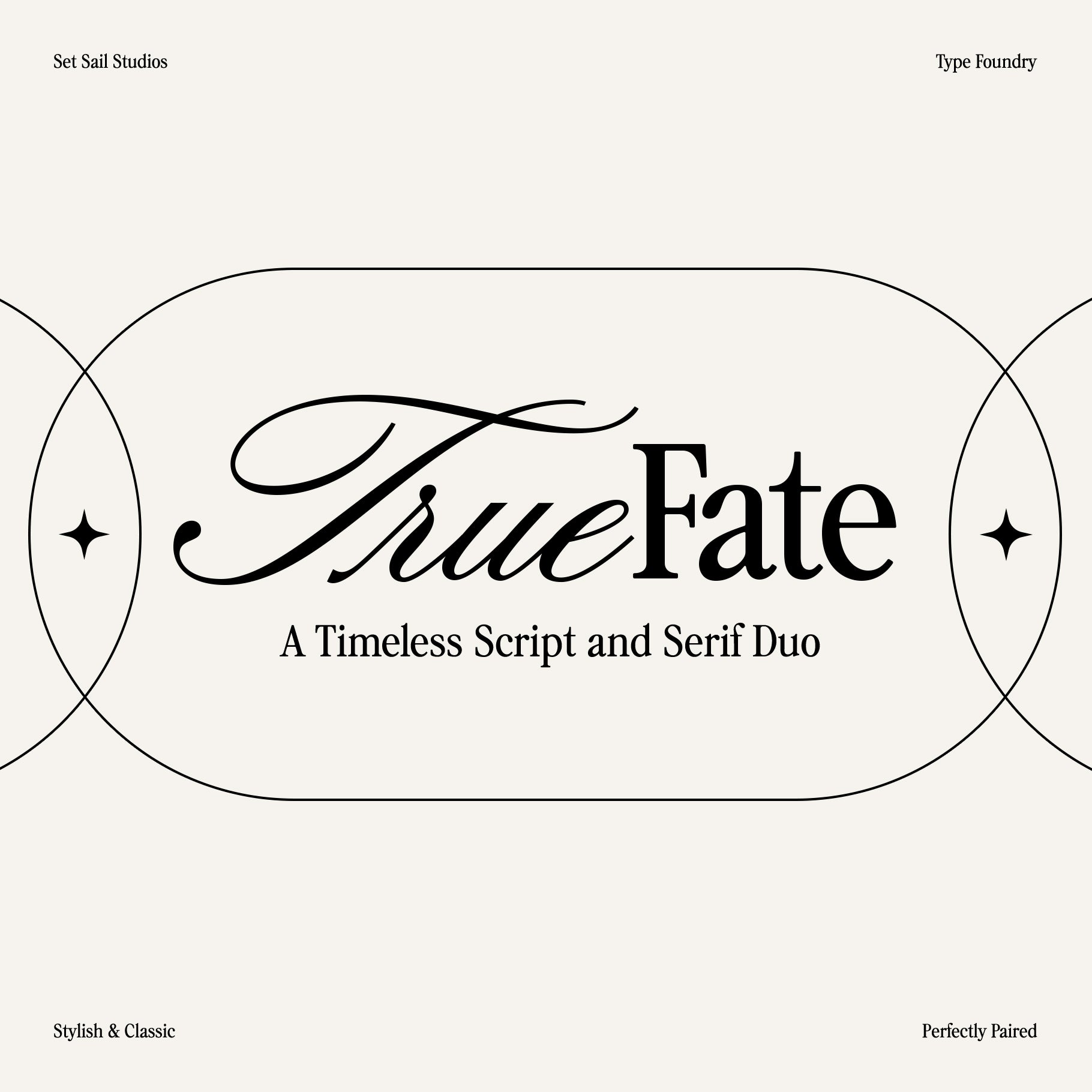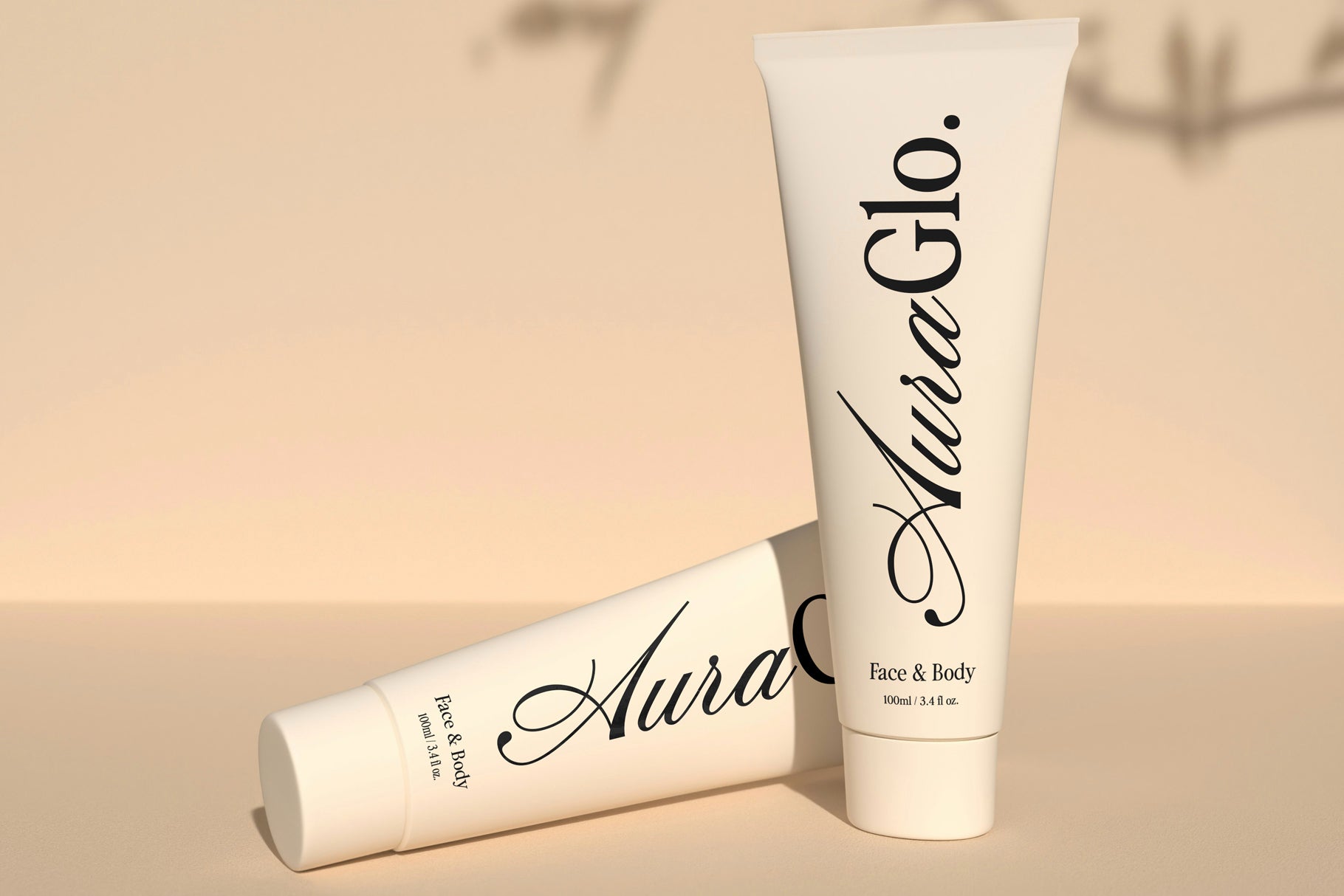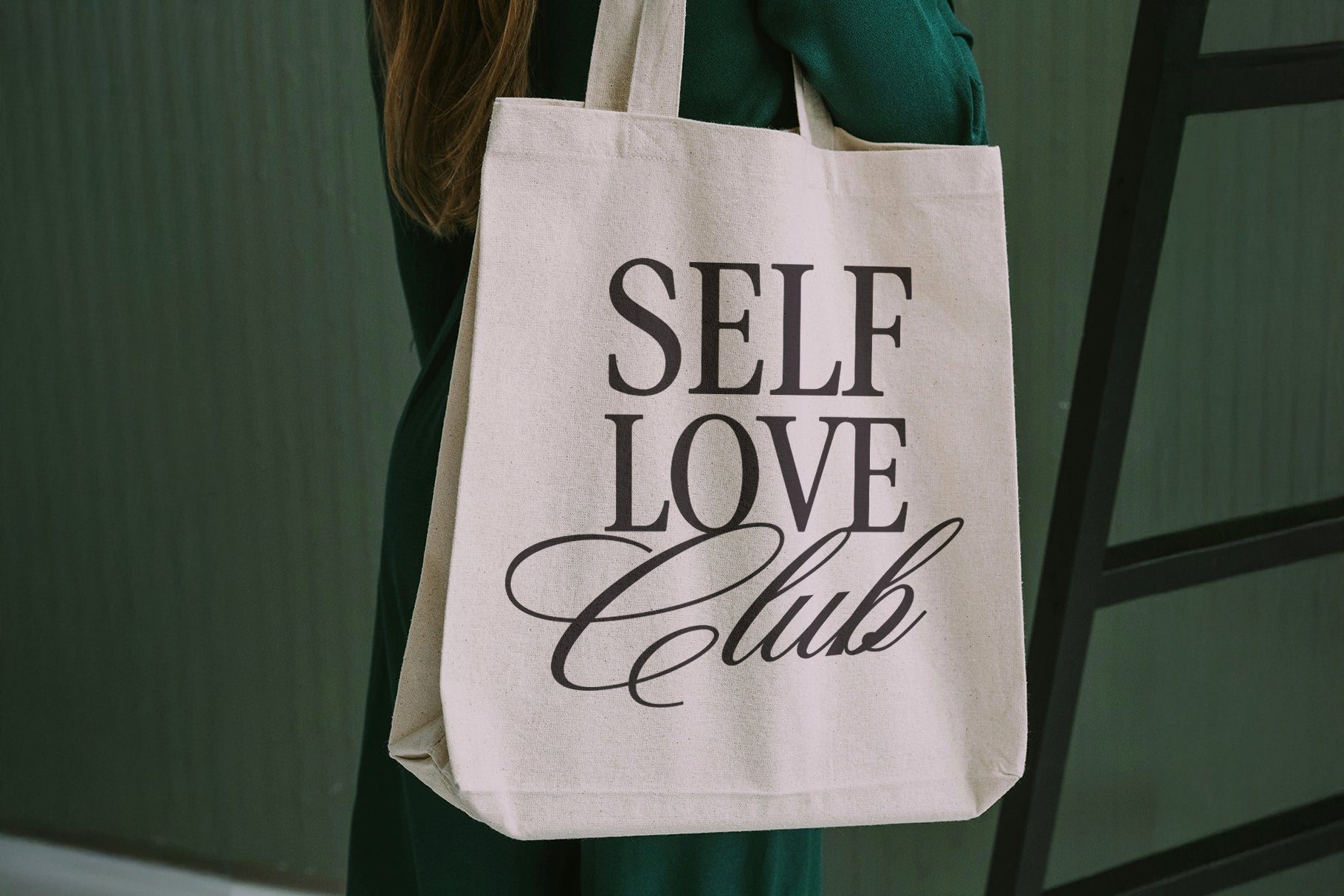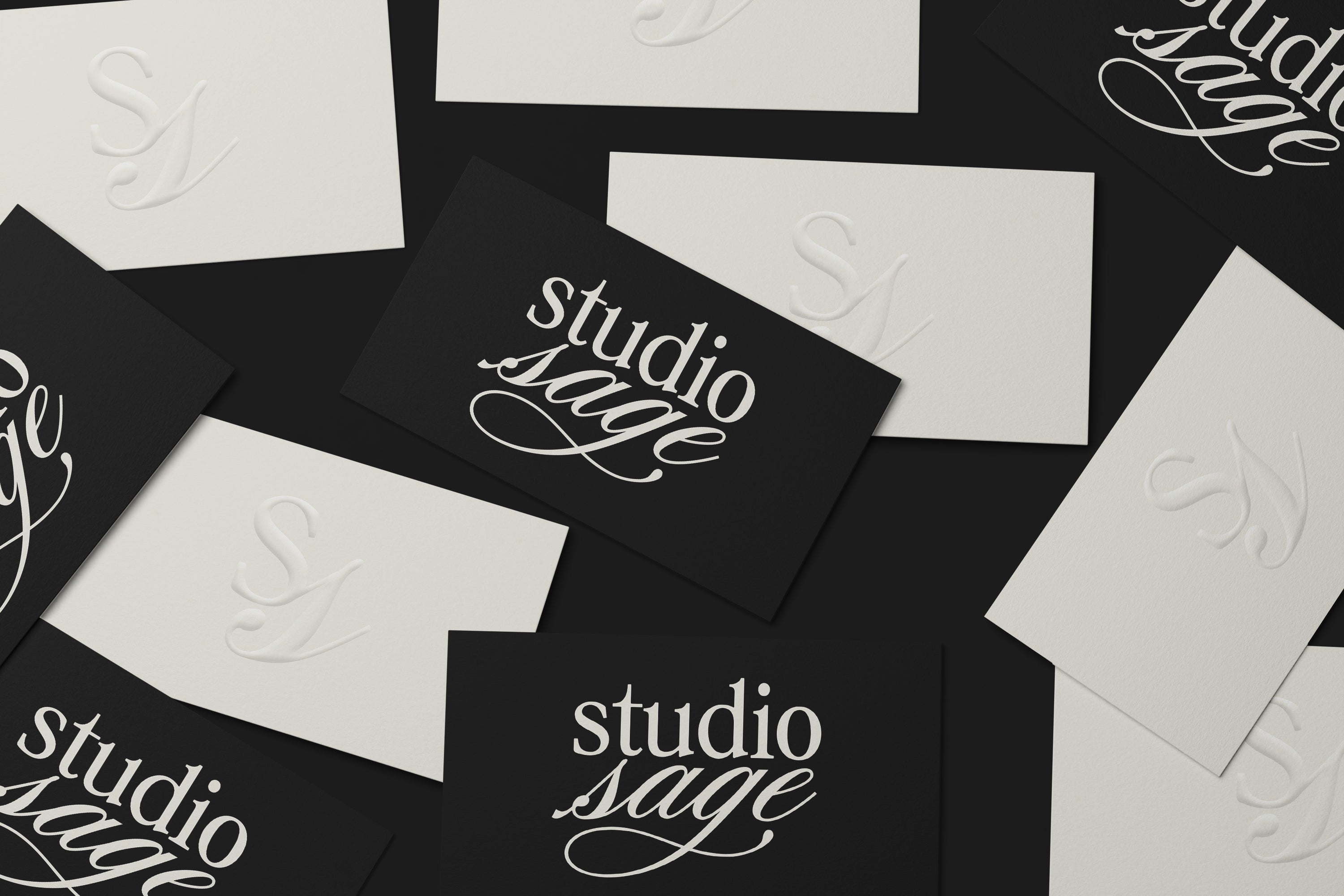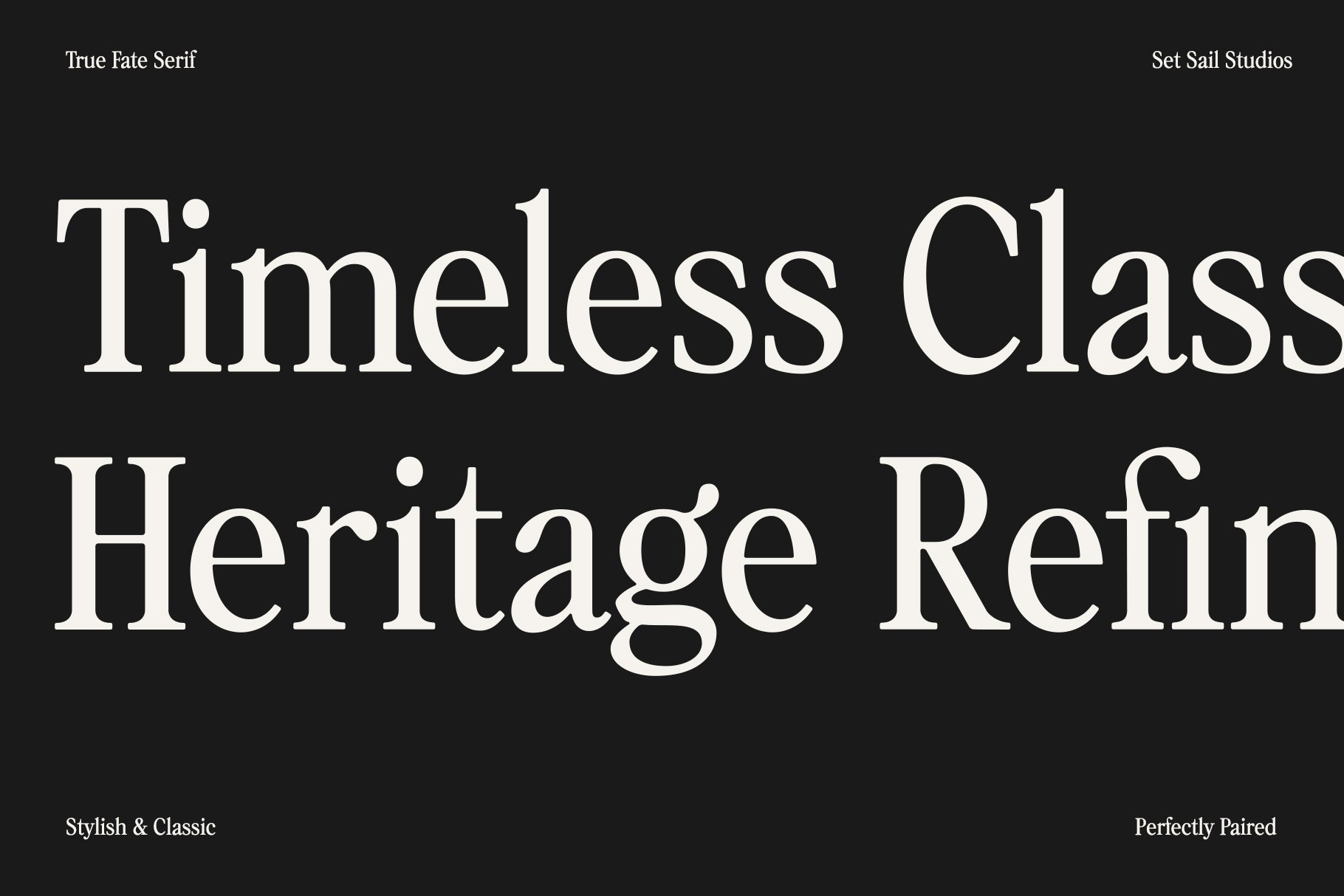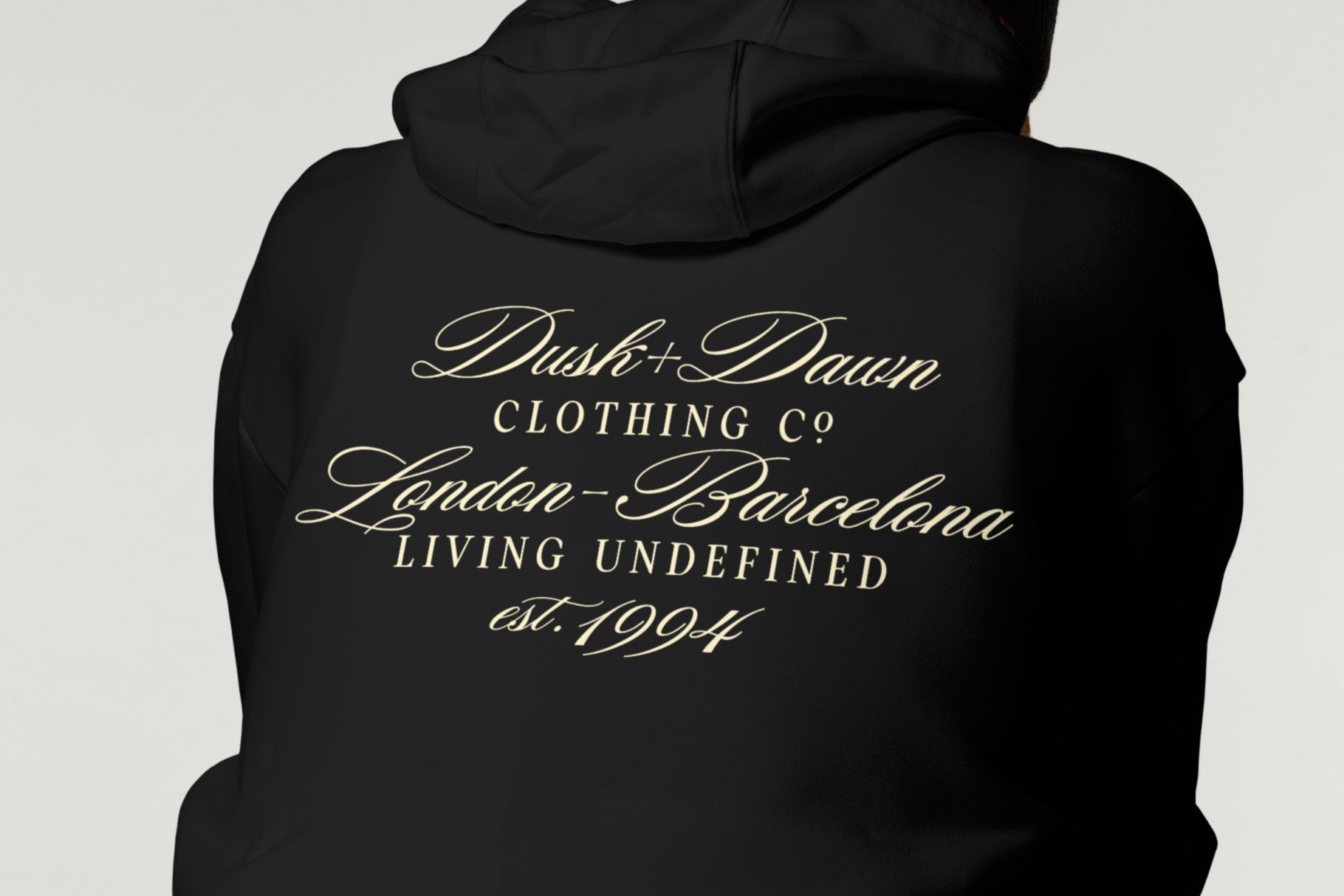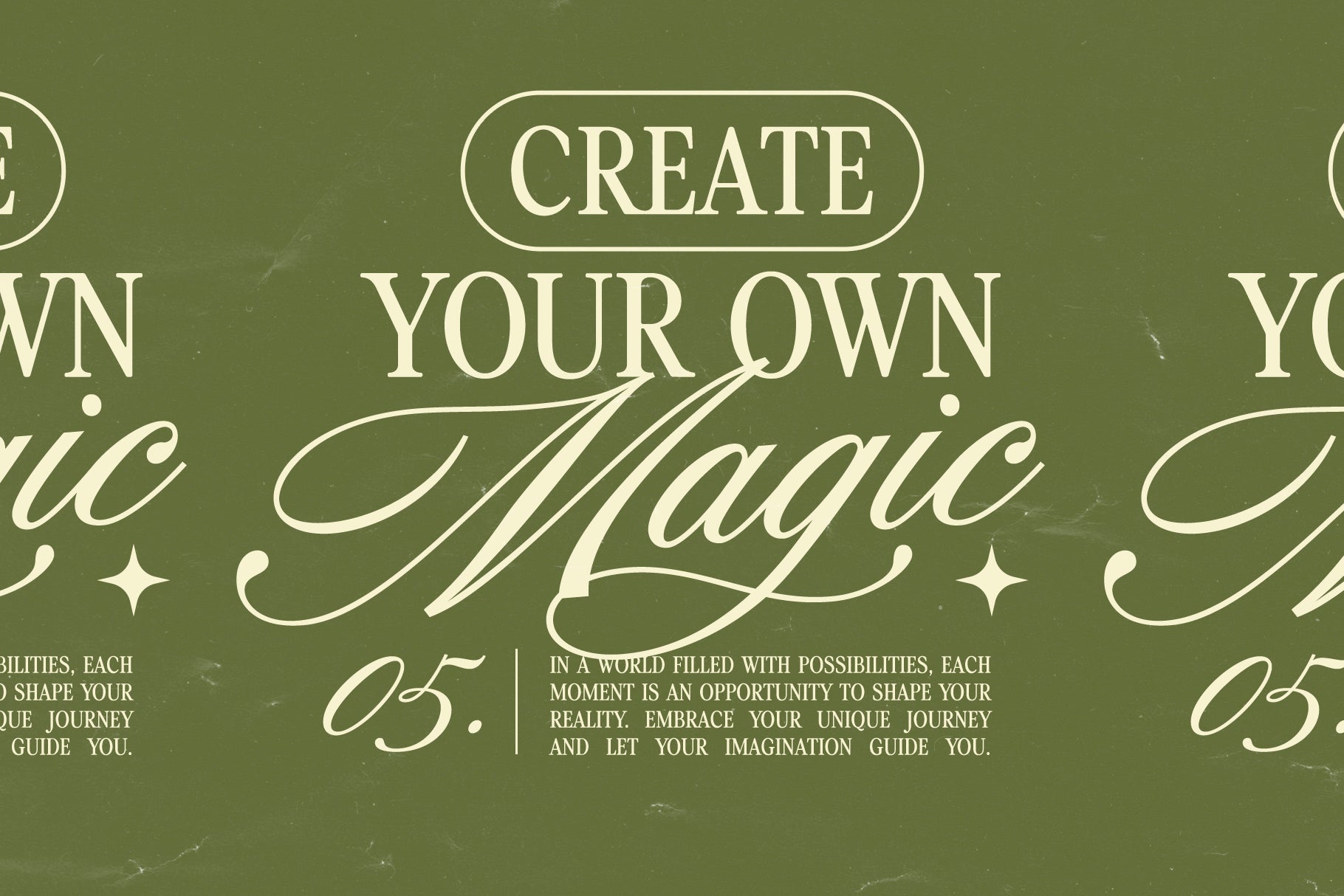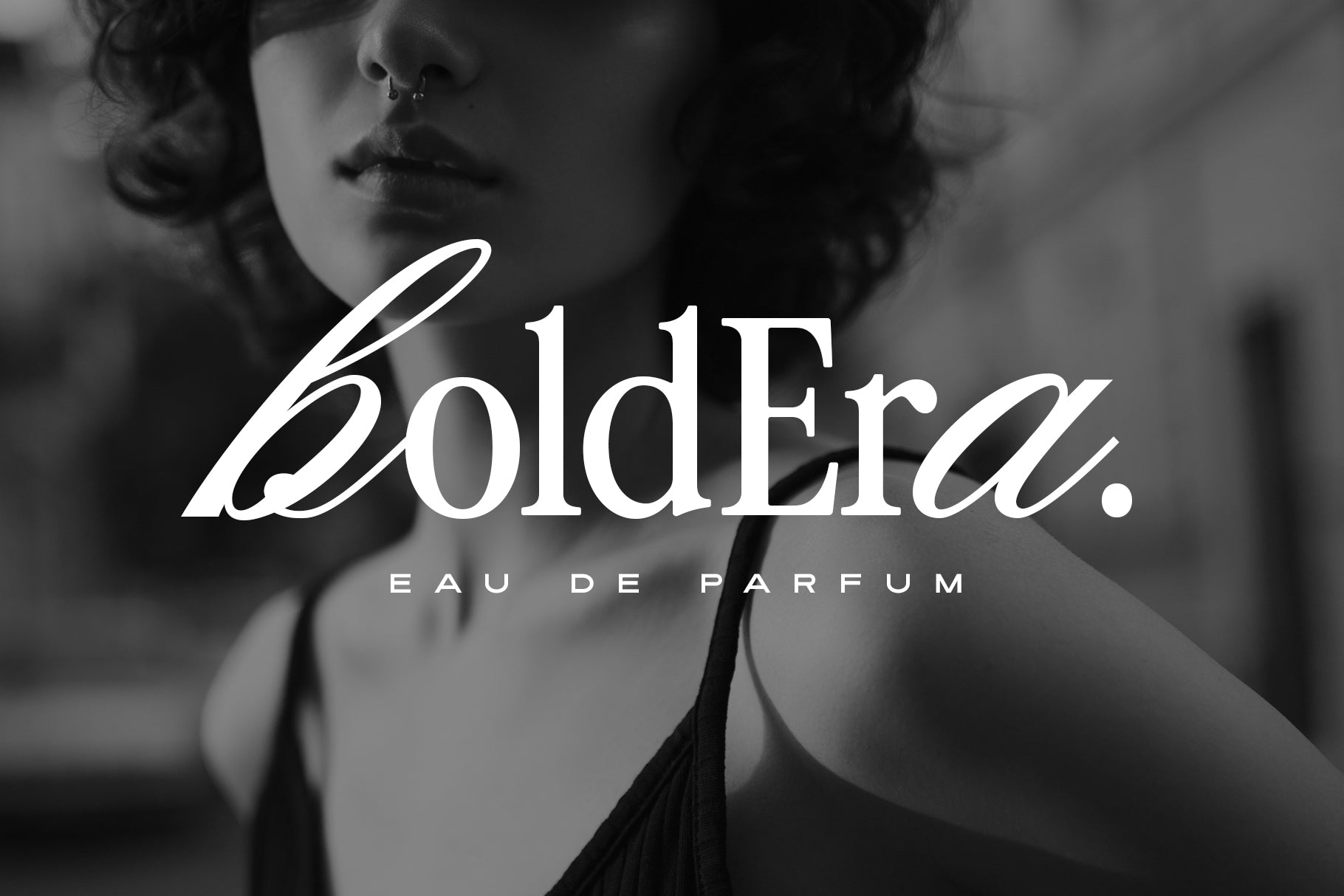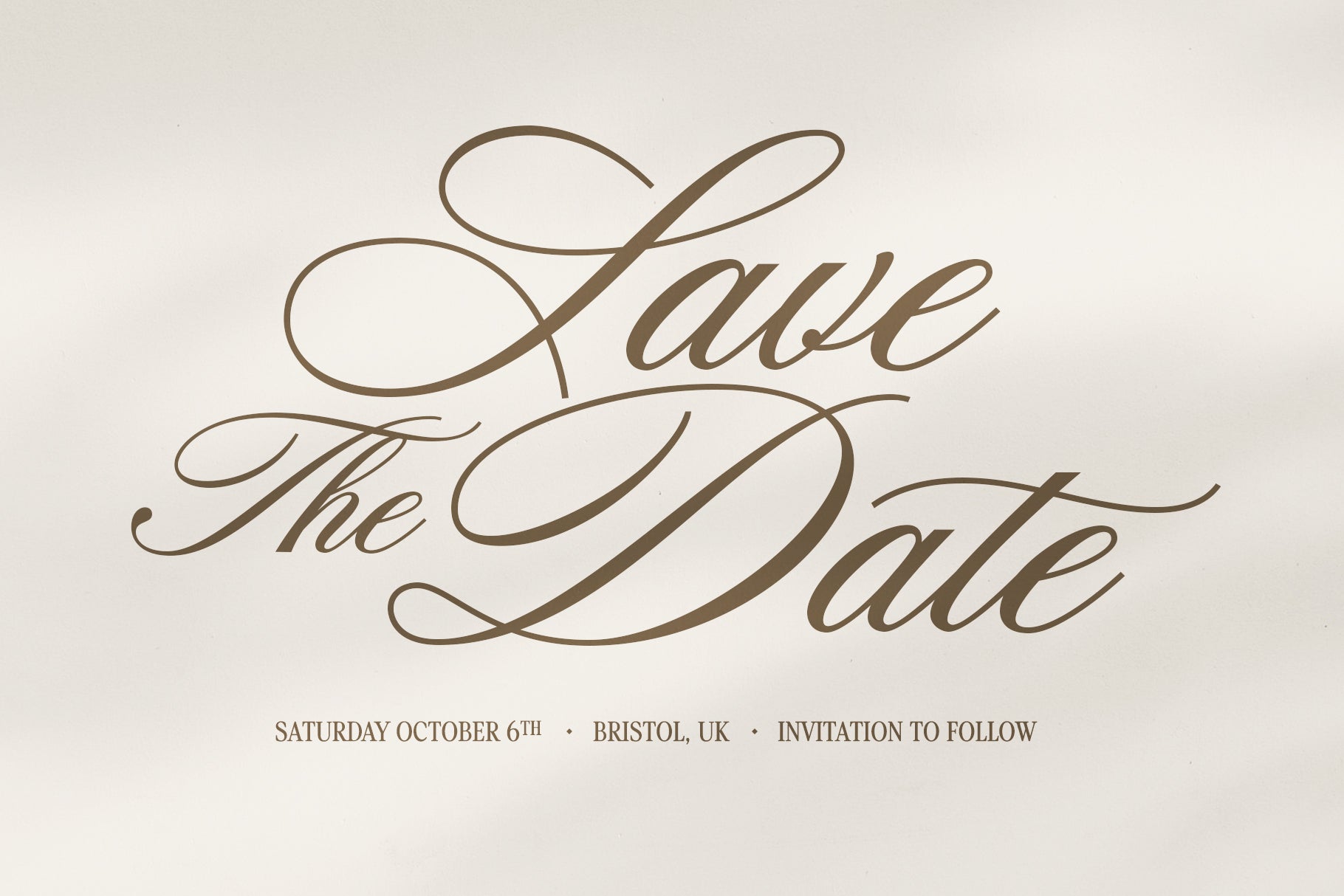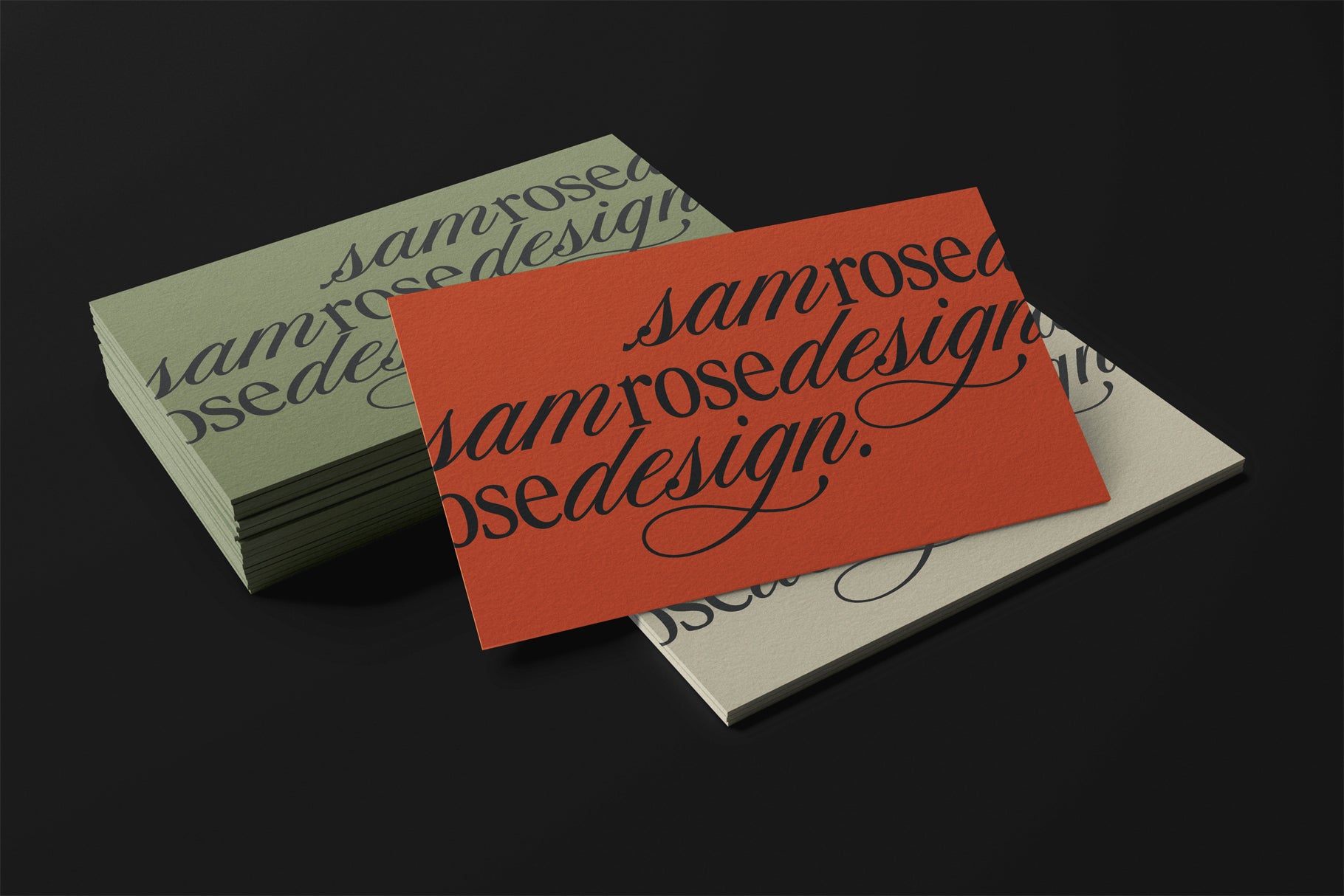
True Fate Script + Serif Font Duo
The True Fate Script + Serif Font Duo includes a clean cursive calligraphy font, True Fate Script, and a versatile classic serif font, True Fate Serif. Both fonts are designed to work harmoniously together, featuring full sets of upper and lowercase characters and supporting multiple languages.